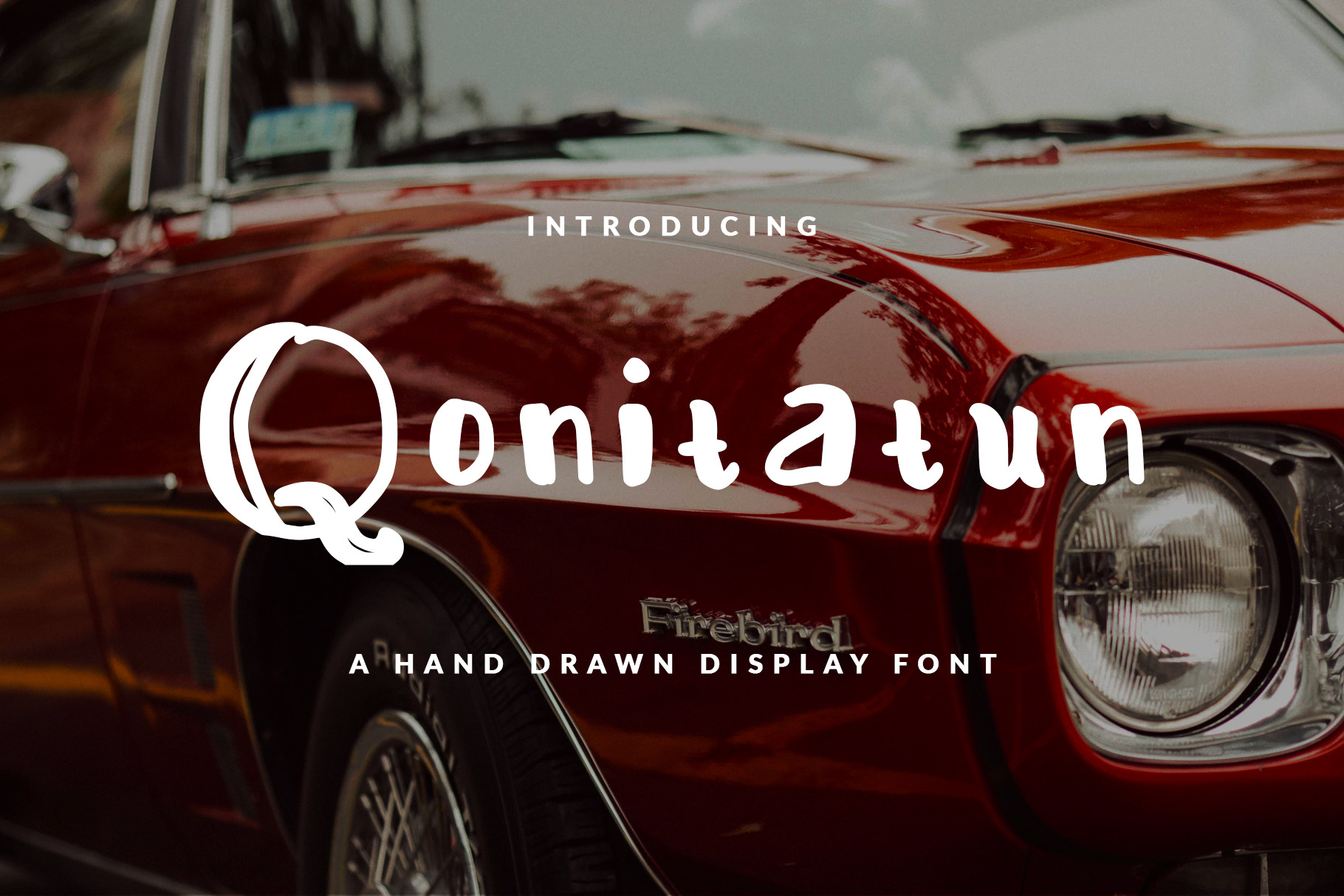
Qonitatun Font Display Feminine
Sans serif hand-drawn display font called Qonitatun was designed for modern, classic, feminine, unique and other style also fit for Header website, general use for header text, kids stories, books, poems and other long text